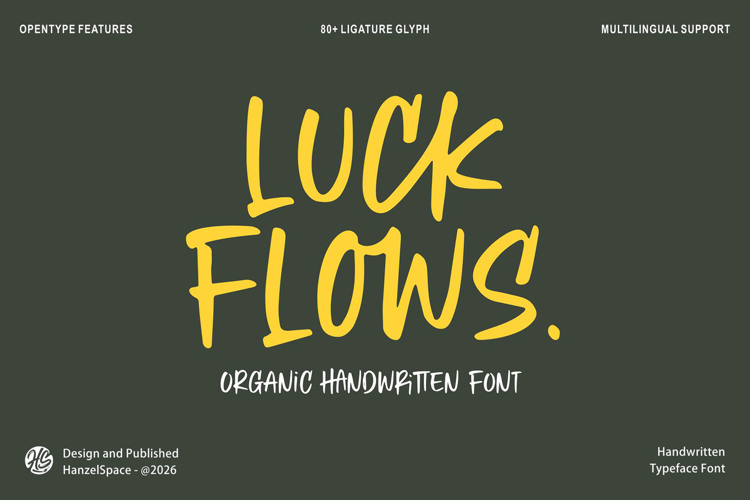
Luck Flows Font
Product Description :
Luck Flows | Organic Handwritten Font
Introducing our font “Luck Flows” creating an organic font that reflects the charm of authentic handwriting, a fast hand-drawn font that is still easy to read. This font is very suitable for your design project needs, namely logos, branding, packaging, quotes and others.
Features:
– Full Set of standard alphabet and punctuation
– Multilingual Characters (ÁÂÄÀÅÃÆÇÐÉÊËÈÍÎÏÌÑÓÔÖÒØÕÚÛÜÙẂŴẄẀÝŶŸỲ áâäàåãæçðéêëèíîïìñóôöòøõœúûüùẃŵẅẁýŷÿỳ€£¥)